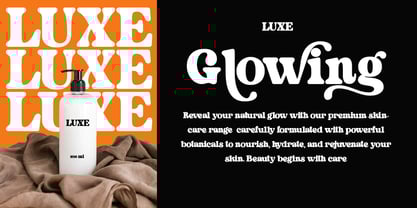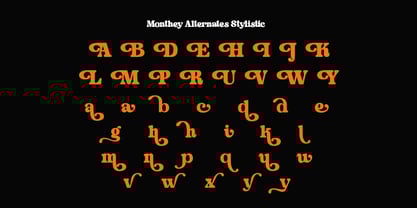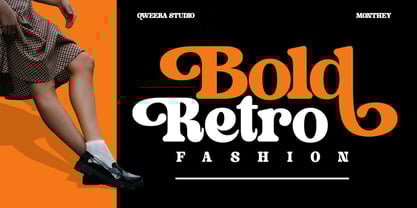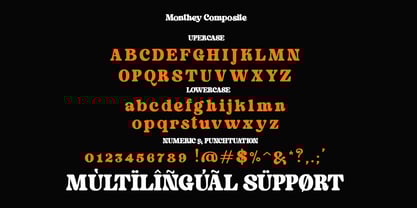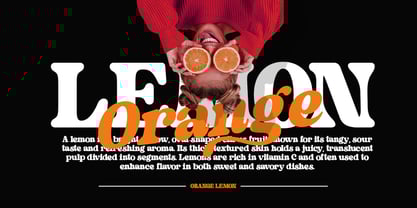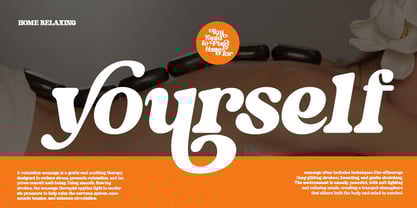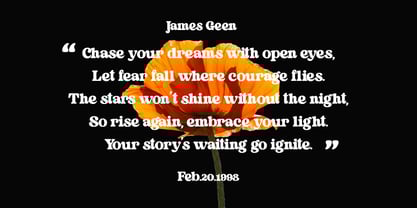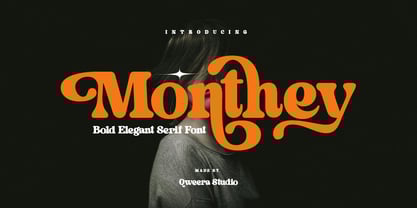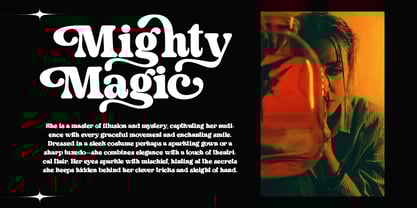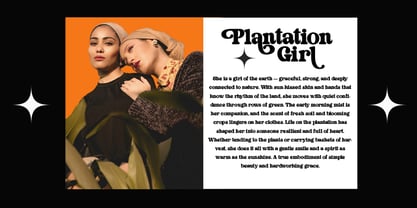
Monthey
by Qweera Studio
The Monthey Font Family was designed by Idhham Cholid Rikzano Yahya and published by Qweera Studio. Monthey contains 2 styles and family package options.
Monthey - Bold Elegant Display Serif Font for Premium Branding
Monthey is a commanding display serif that blends bold confidence with refined elegance. Featuring both regular and italic versions with stylistic alternates and ligatures, this typeface is expertly engineered for luxury branding, high-impact logos, premium packaging, and editorial designs that demand authority with sophistication.
Where Bold Presence Meets Refined Elegance
With its assertive serif structure and graceful italic counterpart, Monthey delivers unparalleled versatility for brands seeking both power and prestige. The carefully crafted alternates and ligatures enable distinctive typographic expressions with perfect balance.
Premium Features Include:
• Bold Display Serif – Strong letterforms with elegant proportions
• Dual Style Versions – Regular & italic for dynamic applications
• Stylistic Alternates – 25+ unique character variations
• Sophisticated Ligatures – Flawless letter connections
• Universal Application – From luxury packaging to billboard designs
• Extended Latin Support – Comprehensive character set
Make Your Mark with Monthey's Authoritative Elegance Ideal for:
• Luxury fashion branding
• Premium cosmetic packaging
• Corporate identity systems
• Magazine headline typography
• High-end event promotions